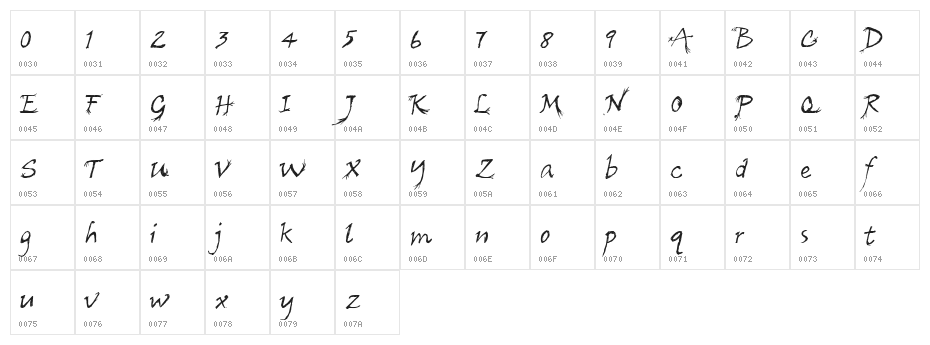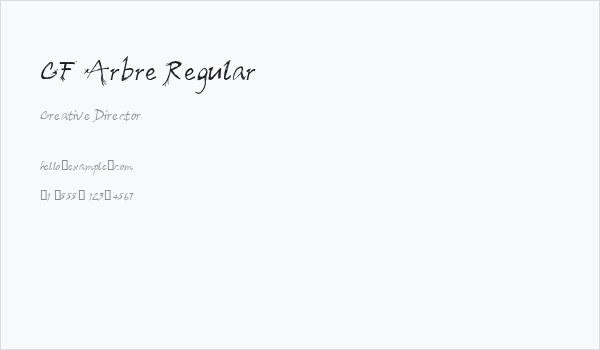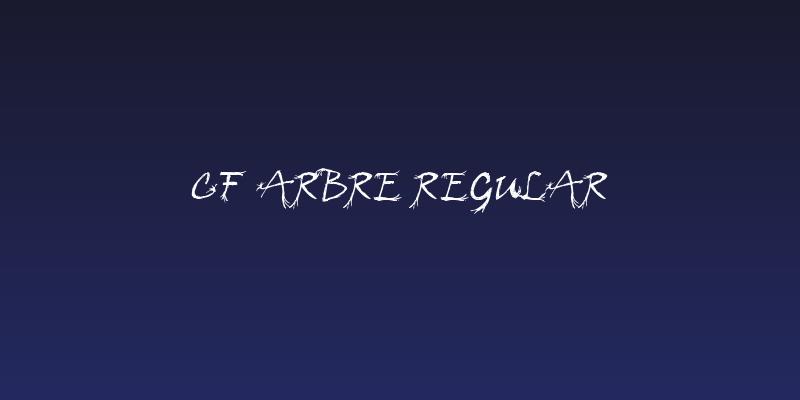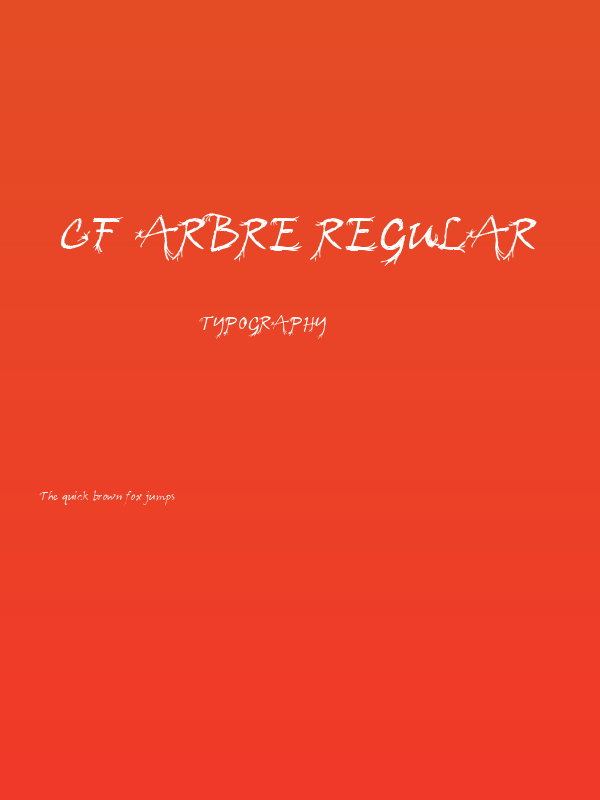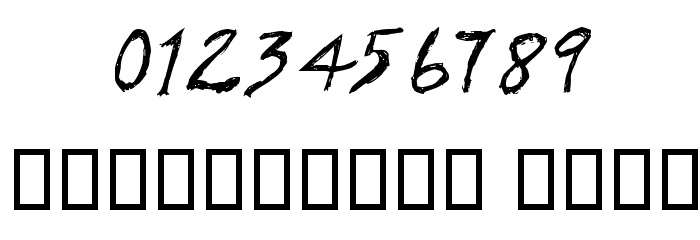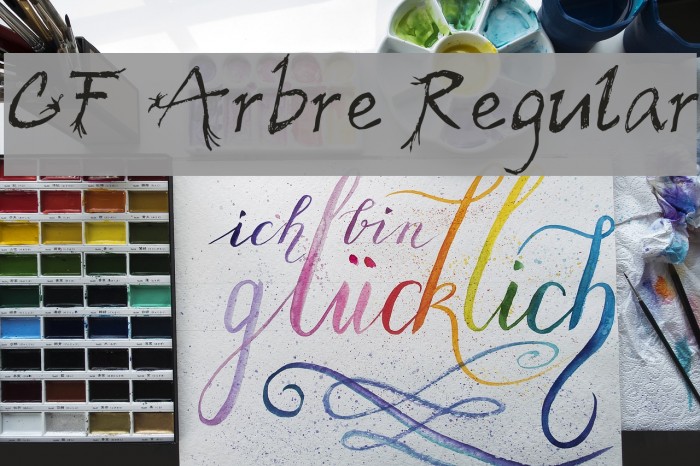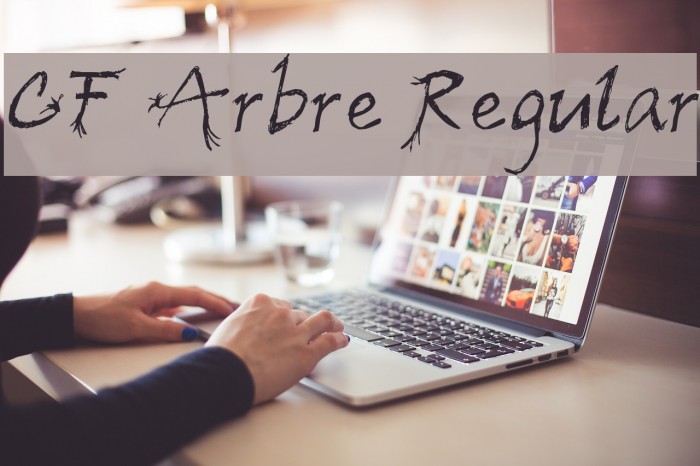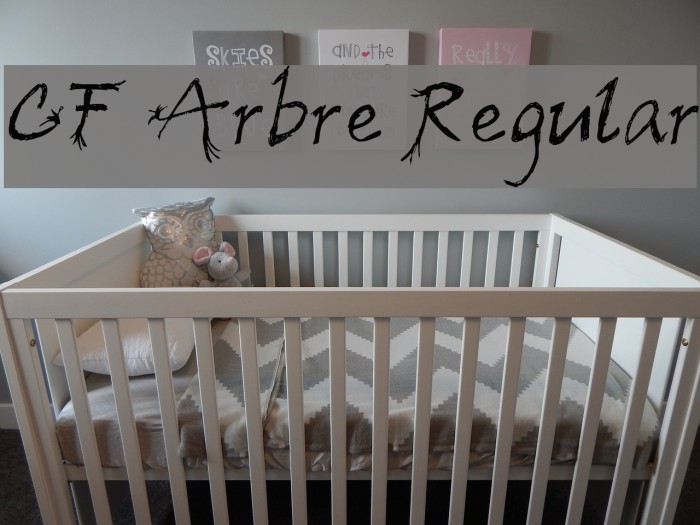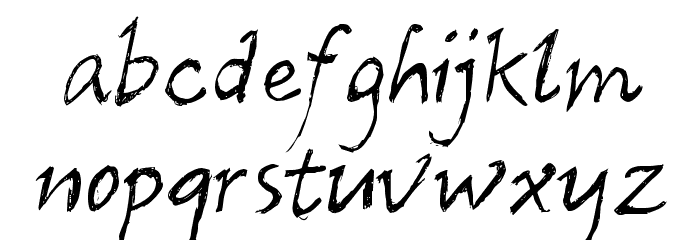
CF Arbre Regular Font
CF Arbre Regular Description
This font features a unique, organic design that mimics the appearance of tree branches or roots. The characters have an irregular, hand-drawn quality with jagged edges and varying line thickness, creating a natural and rustic feel. The uppercase and lowercase letters maintain a consistent style, with the uppercase being slightly more pronounced. Numbers and special characters follow the same aesthetic, ensuring a cohesive look across all text elements. This font's distinctive style makes it ideal for projects that require a touch of nature or a handcrafted appearance.
| Proposed Projects | Perfect for nature-themed designs, eco-friendly branding, rustic invitations, or artistic projects that require a natural touch. |